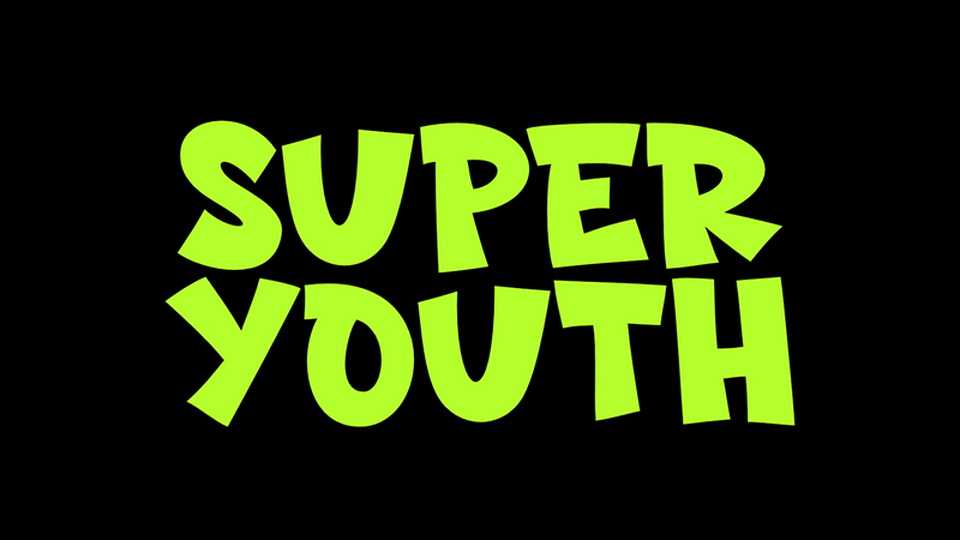
Download Super Youth font, a bold, playful display typeface designed with energetic and expressive letterforms. Its rounded shapes and dynamic proportions create a fun and youthful aesthetic, making it perfect for lively and creative designs.